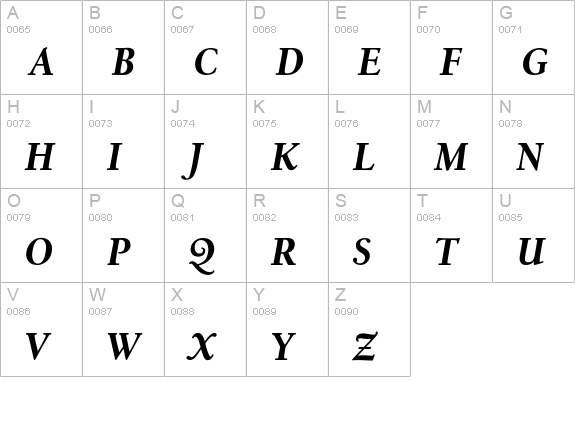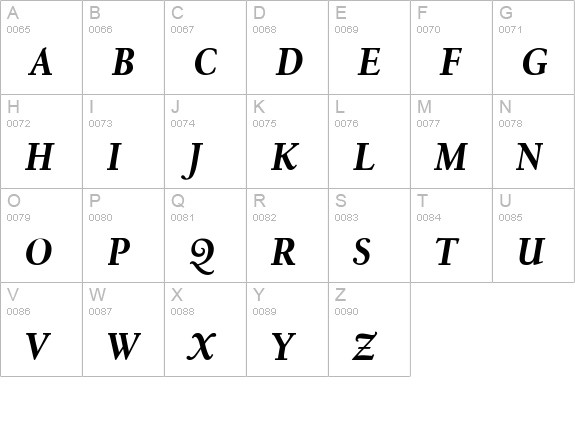
CalifornianText-BoldItalic Font Details
CalifornianText-BoldItalic is a stylish and modern font that exudes sophistication and elegance. With its bold and italicized design, this font is perfect for making a statement in your designs. The sleek and sleek lines of CalifornianText-BoldItalic make it versatile and suitable for a wide range of projects, from branding to editorial design. What makes CalifornianText-BoldItalic even better is that it is available for free download at FontsMarket.com. This means you can easily access this high-quality font without any cost, making it a valuable addition to your font collection. Download CalifornianText-BoldItalic today and elevate your designs with its distinctive and eye-catching style.